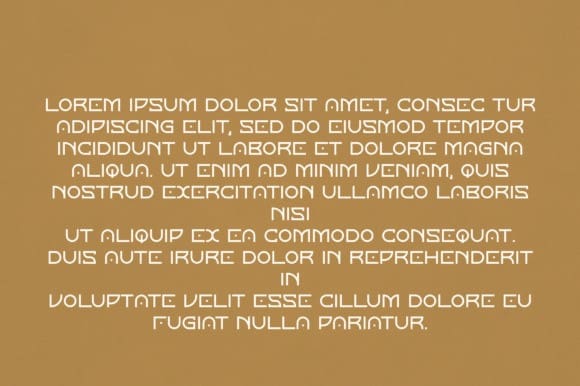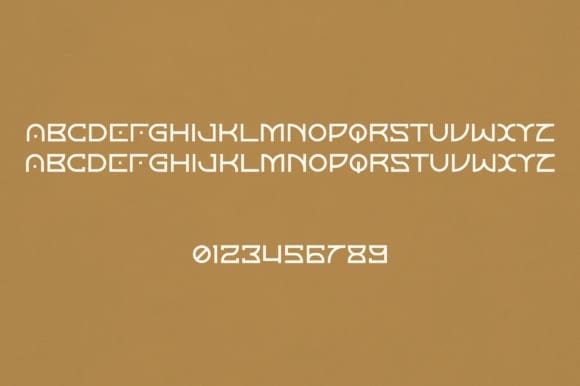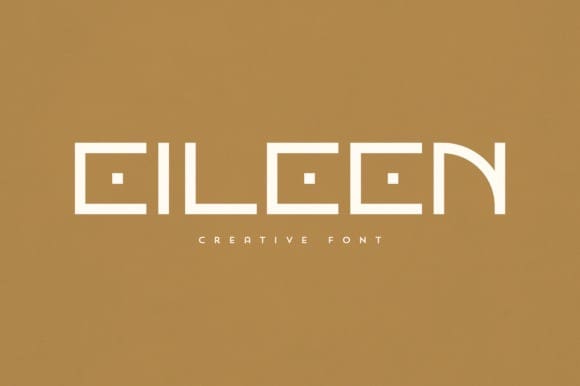
Eileen Display Font
Eileen Display Font, is an elegant and versatile display font that will make your typography truly unique! It will enchant every logo, branding, headline, or plain text!